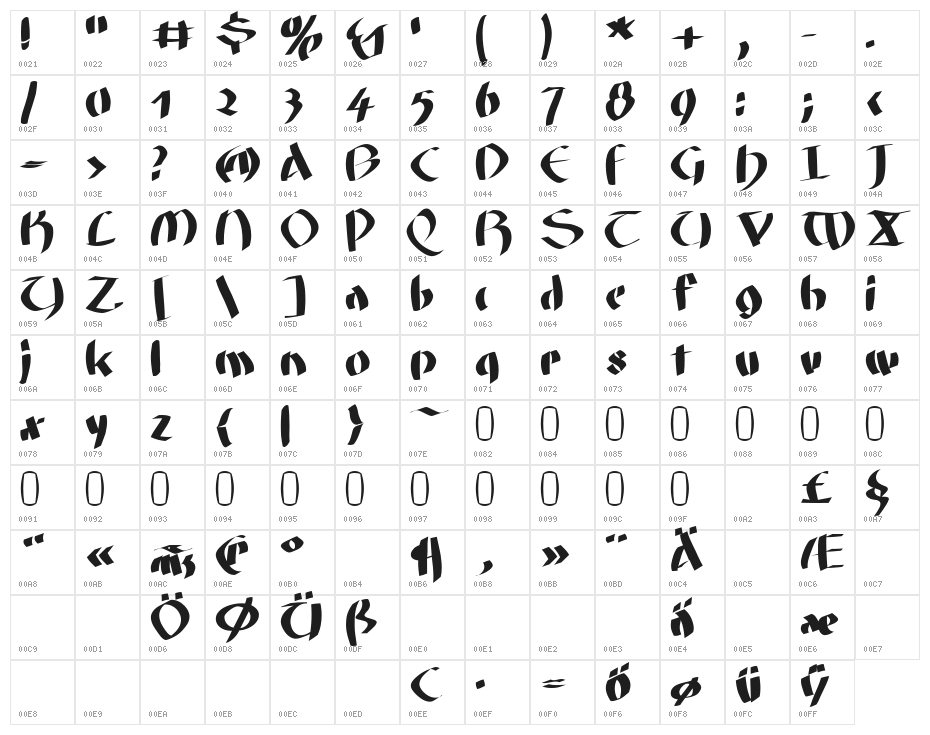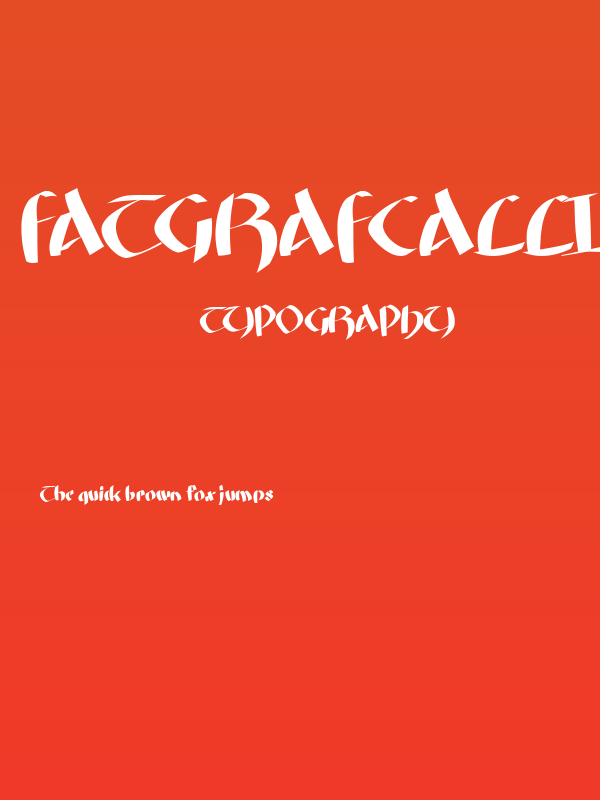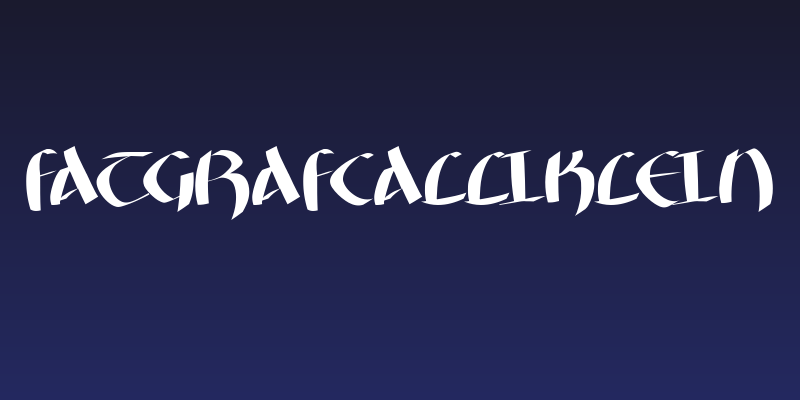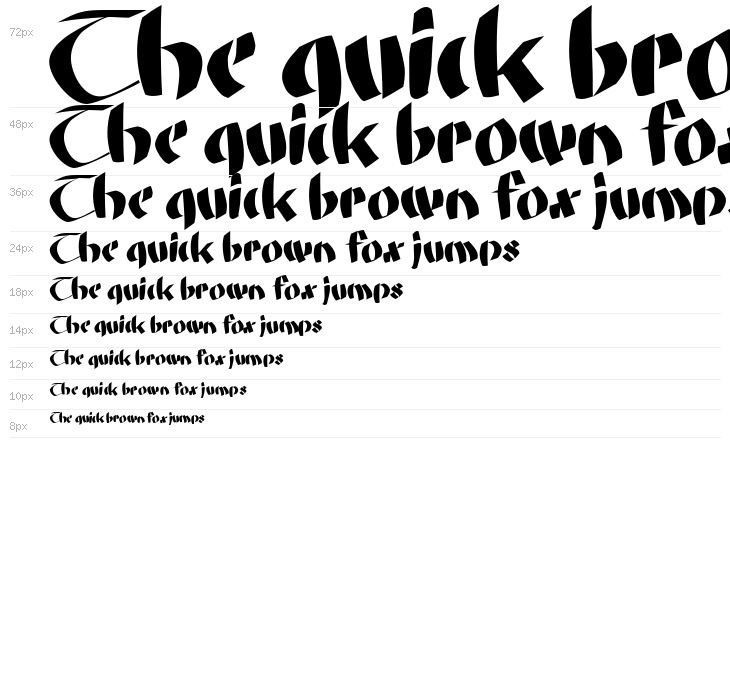
FatGrafCalliklein Font
FatGrafCalliklein Description
This font features a bold and dynamic style with a strong presence. The characters are crafted with thick strokes and sharp angles, giving it a distinctive and powerful appearance. The uppercase letters are particularly striking, with a sense of movement and energy. The lowercase letters maintain the boldness while offering a slightly more fluid form. Numbers and special characters are equally bold, ensuring consistency across all elements. This font is ideal for making a statement, with its high contrast and unique design.